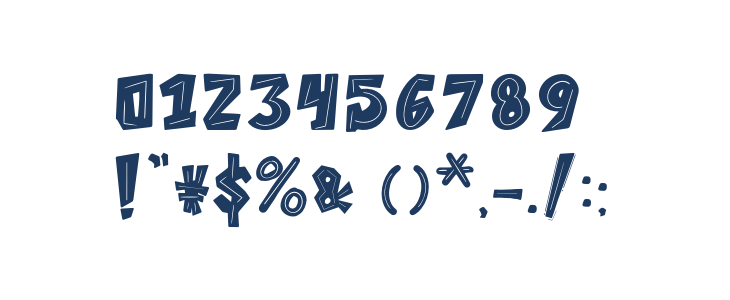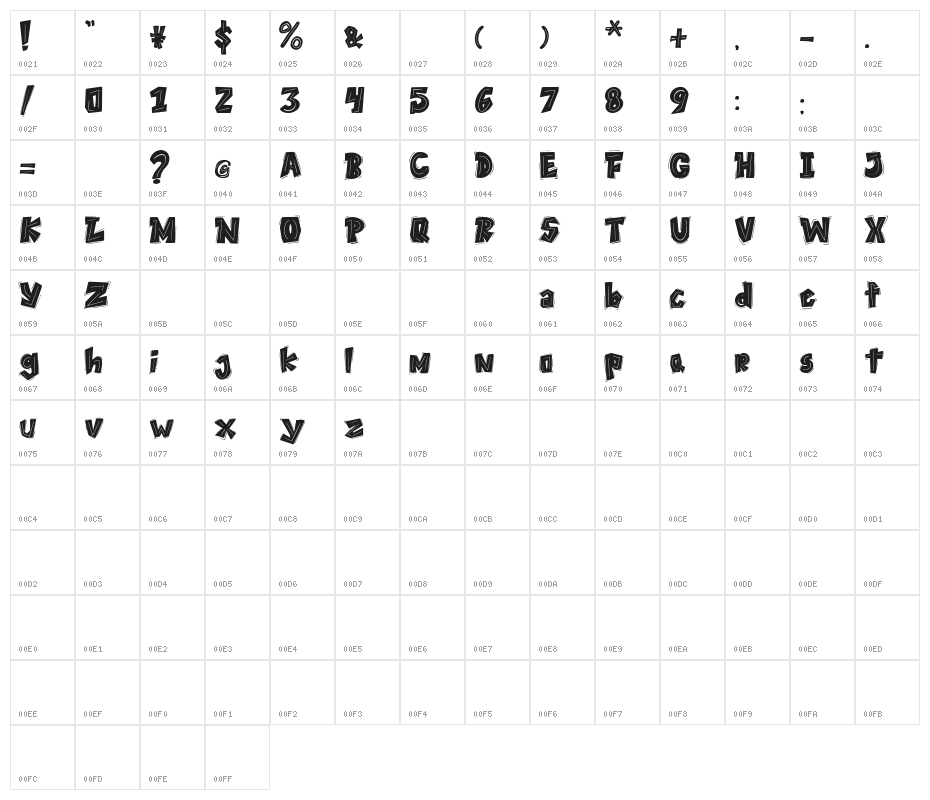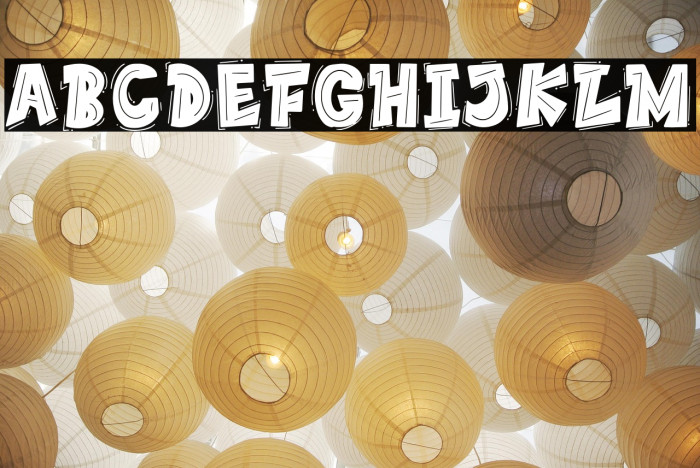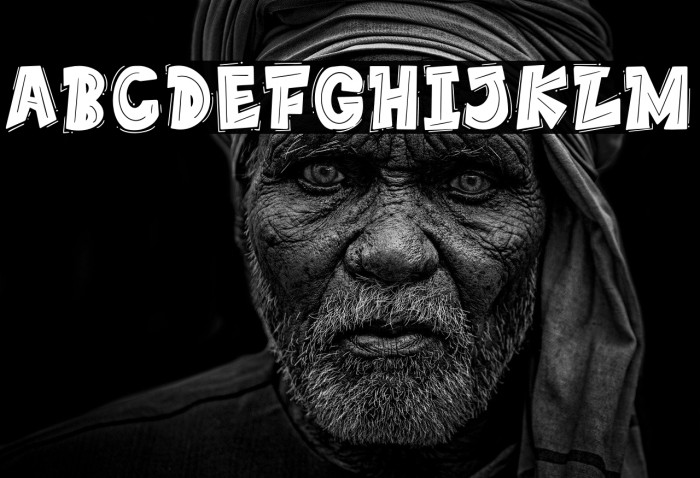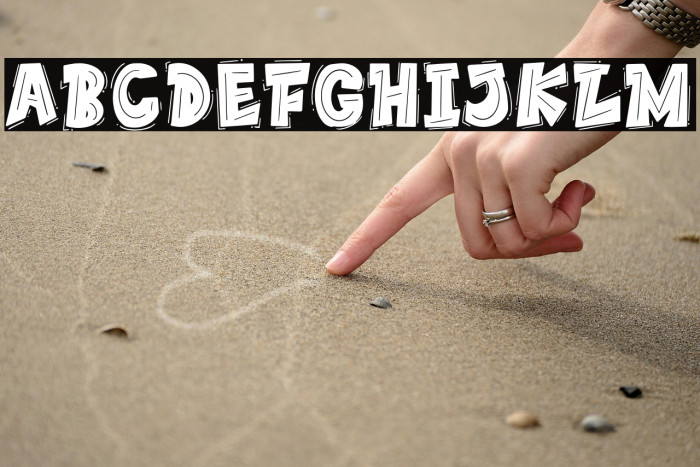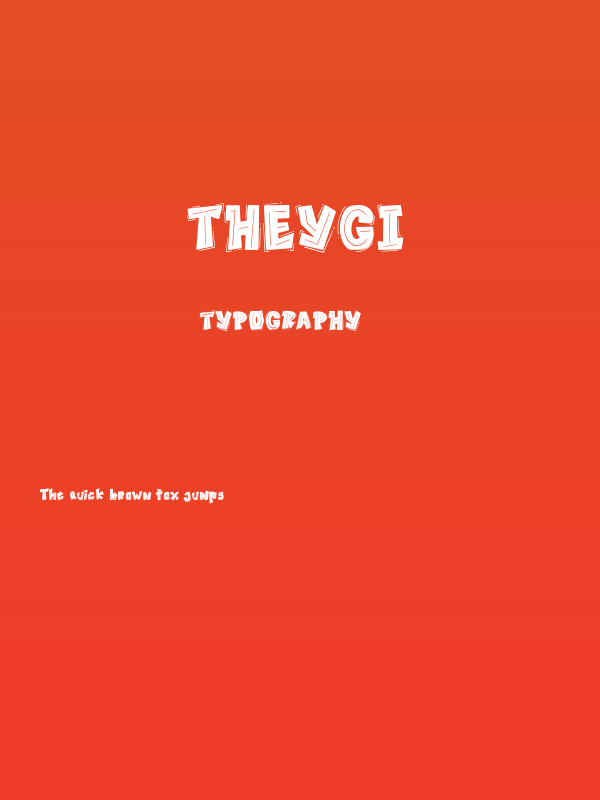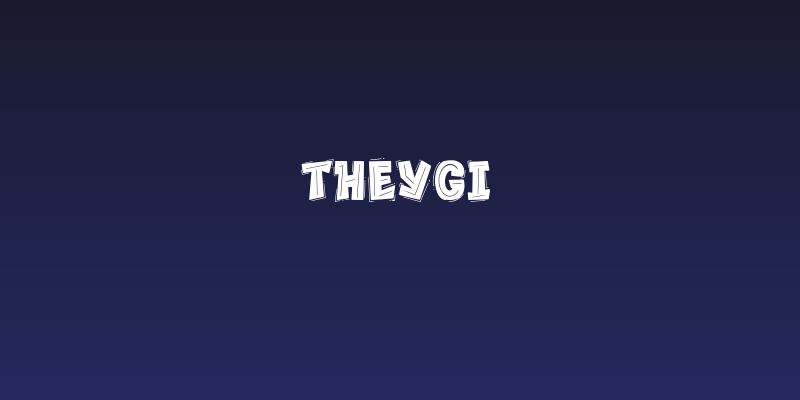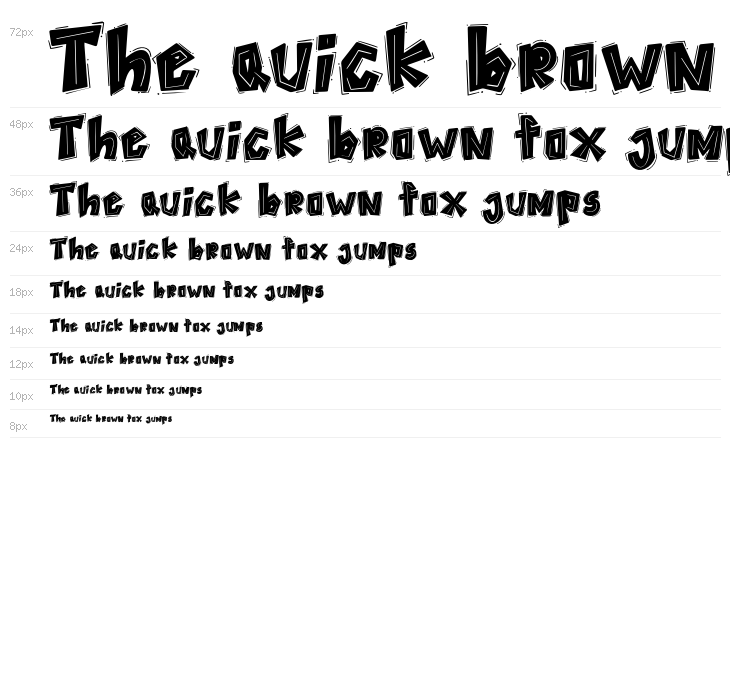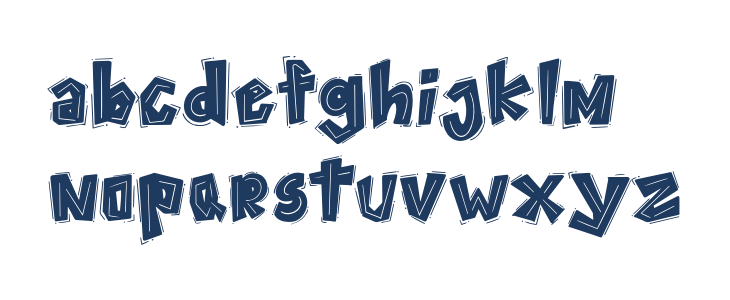
THEYGI Font
THEYGI Description
This font features a bold, playful style with a hand-drawn appearance. Each character is outlined with a thick black stroke, giving it a cartoonish and dynamic feel. The letters are slightly irregular, adding to the whimsical and informal nature of the design. The uppercase and lowercase letters maintain a consistent style, with exaggerated angles and curves that create a sense of movement. Numbers and special characters are designed to match the energetic and fun aesthetic, making this font ideal for creative and informal projects.
| Overall Style | Playful, Cartoonish, Informal |
| Proposed Projects | Ideal for children's books, comic strips, playful branding, and creative posters. |